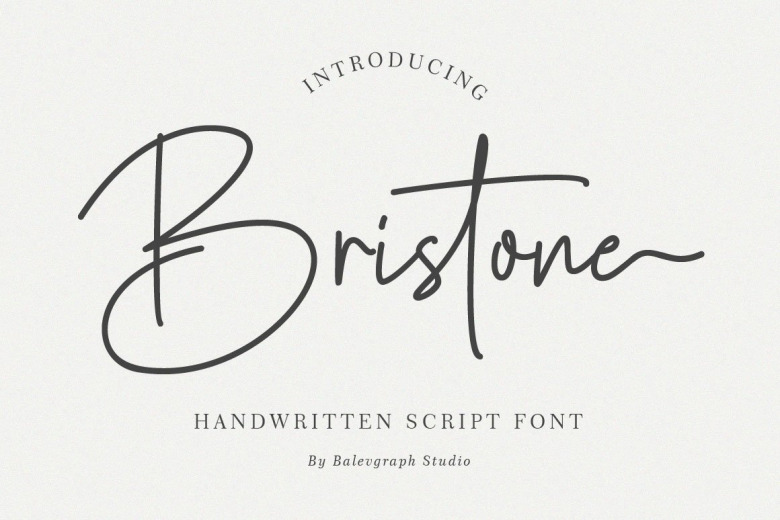
Bristone Handwritten Font
Bristone Handwritten Font is an extremely exquisite handwritten script typeface. Slim, graceful, and flowing, this font will definitely elevate the look of any of your beautiful creations while keeping them grounded and natural. This font is PUA encoded which means you can access all of the glyphs and swashes with ease!
Bristone Handwritten Script Font